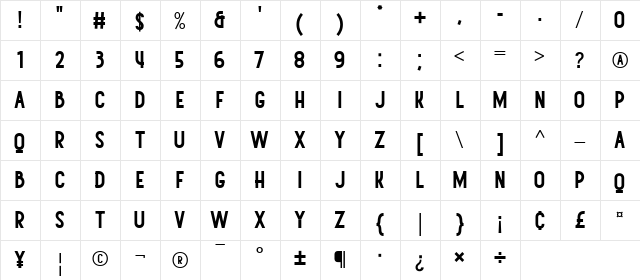
Canterpids Regular Font Preview
Canterpids Regular
Canterpids Regular Font Details
Design Context for Canterpids Typeface
Canterpids is a composed and adaptable typeface that performs quietly and consistently across a wide range of design contexts.